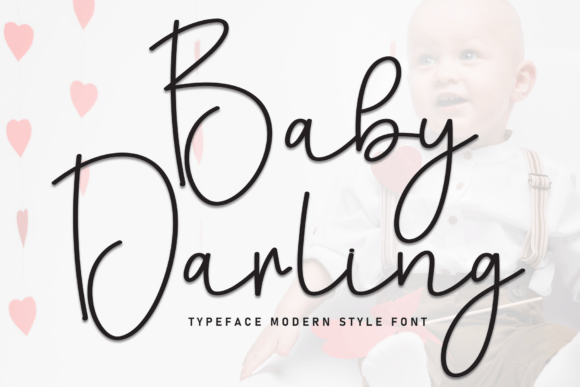
Unleash Your Creativity with the Baby Darling Font
Do you remember the moment when a font just clicked, and your entire design came together in a burst of inspiration? That’s what happened when we stumbled upon the Baby Darling Font. Its whimsical charm and natural style made it the perfect fit for our next creative project.
Meet the Baby Darling Font, a sweet and friendly handwritten font designed to bring a touch of warmth and personality to your designs. Whether you’re working on a children’s book, a food blog, or a social media campaign, this font is sure to add a unique touch. As a designer, you know how valuable it is to have a versatile font that can be used across various projects and mediums.
With the Baby Darling Font, the possibilities are endless. Its friendly and approachable style makes it an ideal choice for designers looking to add a human touch to their work. Whether you’re a seasoned pro or just starting out, this font is sure to become a trusted companion in your creative journey.
Baby Darling Font Key Features
- Font Style: Handwritten, Script
- Unique Characteristics: Includes swashes, ligatures, and contextual alternates for a more natural handwriting feel
Baby Darling Font Review
As a designer, I’ve had the pleasure of working with the Baby Darling Font, and I must say it’s a sweet addition to any project. Here’s what I like about it:
- ✨ The font’s playful, whimsical feel is perfect for creating a nursery or children’s product design.
- ✨ The font is highly customizable, with a wide range of sizes, colors, and styles to choose from.
- ✨ The font’s rounded edges and soft lines make it easy on the eyes and create a warm, inviting atmosphere.
- ⚠️ The font may not be suitable for more formal or professional projects, as its playful nature can come across as immature or unprofessional.
- ⚠️ Some users may find the font’s rounded edges and soft lines to be too cursive or ornate, which can be distracting in certain contexts.
Overall, I think the Baby Darling Font is a great choice for designers who want to add a touch of whimsy and playfulness to their projects. While it may have some limitations, its customizability and inviting feel make it a worthwhile addition to any design toolkit.
Tips for Getting the Most Out of the Baby Darling Font
The Baby Darling font is ideal for creating whimsical and playful designs. To get the most out of it, try using it in combination with other playful fonts and bright colors.
Use the font in titles, headings, and body text to create a cohesive and eye-catching design.
The Baby Darling font is perfect for:
- Wedding stationery and decorations
- Graphic design projects that require a playful touch
Alternatives to Baby Darling Font
Carolyna Pro is a modern, elegant script font with a touch of sophistication. It’s perfect for use in high-end branding, luxury packaging, and other projects that require a sense of refinement. Carolyna Pro is more refined and polished than Baby Darling Font, making it ideal for use in titles, headings, and other prominent design elements.
Q: What is the recommended font size for the Baby Darling Font?
The recommended font size for the Baby Darling Font is between 12pt and 18pt, depending on the desired level of legibility and visual impact. Experiment with different font sizes to achieve the best results for your design project.